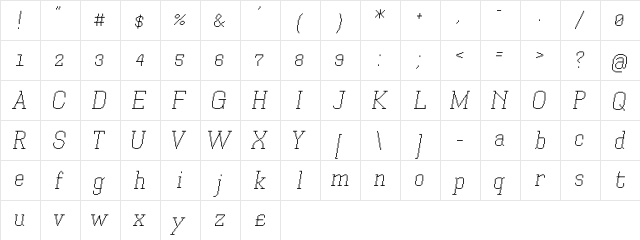
Xilla Pro Pro-Italic
| Designer | Will Albin-Clark |
Design Context for Xilla Pro Typeface
Xilla Pro is a composed and adaptable typeface that performs quietly and consistently across a wide range of design contexts. The slanted form adds forward momentum and visual energy.
Pro Tip: Use Xilla Pro for emphasis, pull quotes, and subheadings where its slanted energy can add rhythm to the layout.